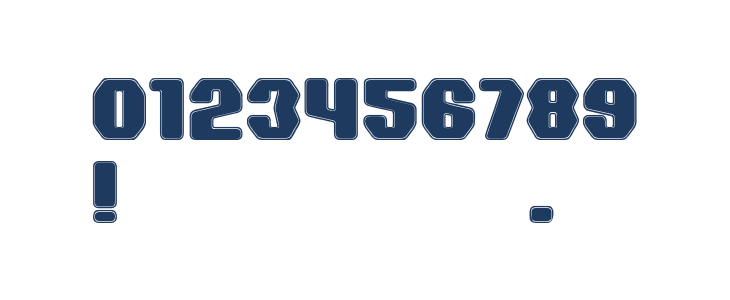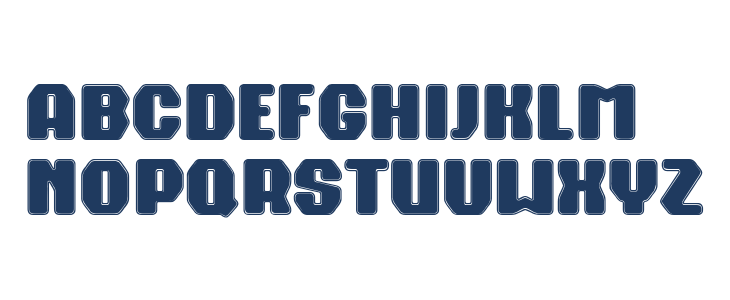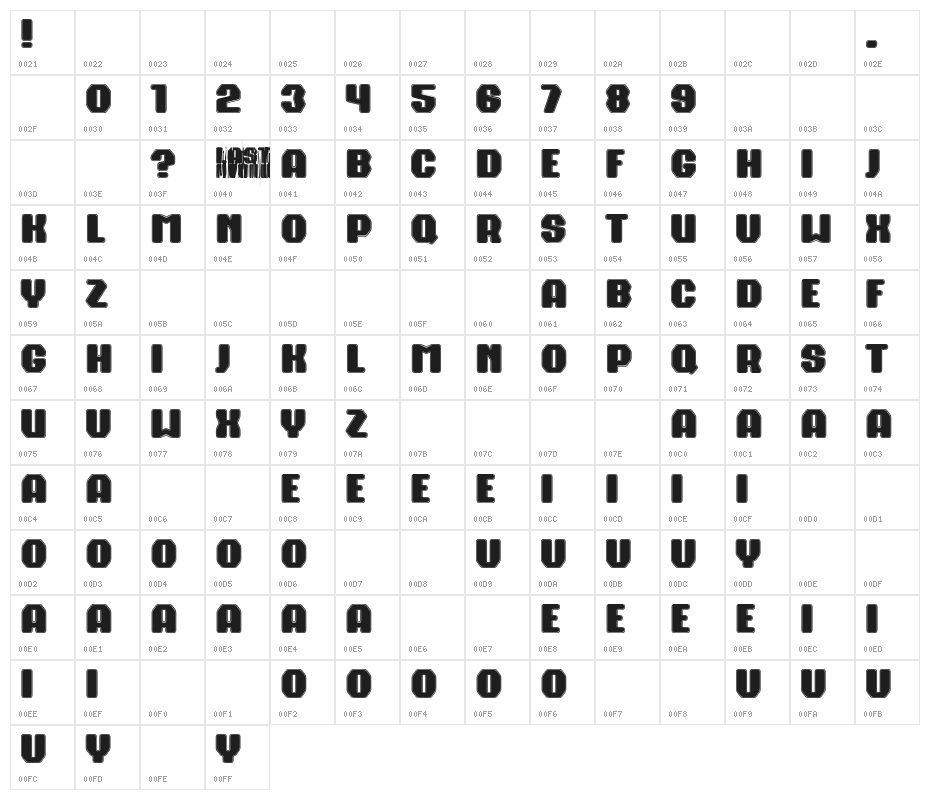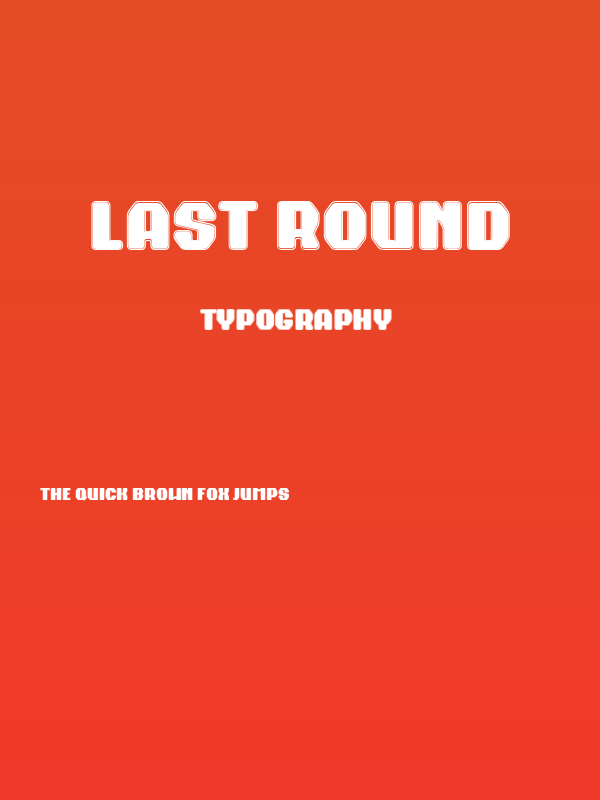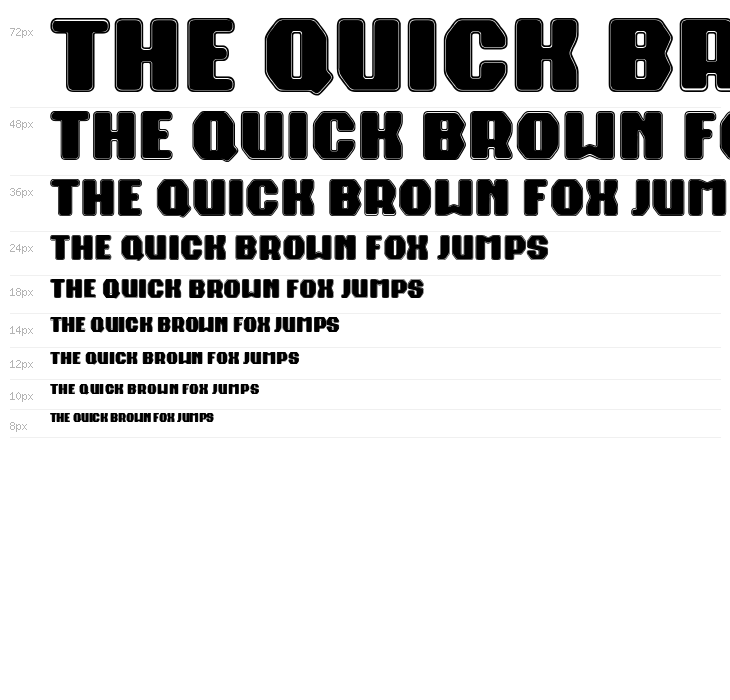
Last Round Font
Last Round Description
A bold, geometric display typeface with thick, blocky letterforms and a distinct outline, featuring sharp angles and a strong, industrial presence. The characters are uppercase only, with consistent stroke width and minimal contrast, giving a modern and impactful look.
| Overall Style | Modern, Industrial, Decorative |
| Use Case | Headlines, Logos, Posters, Signage |
| Proposed Projects | Sports branding, event posters, gaming logos, signage, merchandise, headlines. |